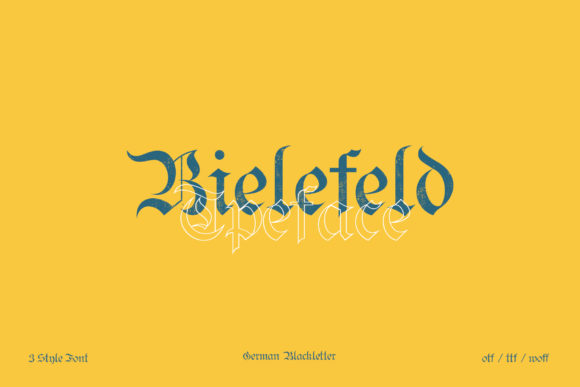
The Bielefeld Font: A Timeless Blackletter Classic
I’ll never forget the design project that led me to discover the Bielefeld font. I was working on a branding campaign for a medieval-themed restaurant, and I was struggling to find the perfect font to convey the sense of history and sophistication they needed. That’s when I stumbled upon Bielefeld – a classic and sophisticated blackletter font with a bold feel that instantly added a medieval twist to my design ideas!
An Honest Review of Bielefeld Font
- ✨ Timeless elegance: Bielefeld has a classic, sophisticated feel that works well for designs that require a sense of history and tradition.
- ✅ Bold and eye-catching: This blackletter font is perfect for headlines, titles, and emphasis text that needs to stand out.
- 💡 Versatile: Bielefeld can be used for a wide range of design projects, from medieval-themed designs to modern, bold statements.
While Bielefeld is an amazing font, there are a few things to keep in mind:
- 🤔 Limited legibility: As a blackletter font, Bielefeld can be challenging to read in small sizes or for long blocks of text.
- ⚠️ Limited suitability for body text: Due to its bold and ornate nature, Bielefeld is best used for headlines, titles, and emphasis text rather than body text.
The Backstory of Bielefeld Font
Bielefeld font was inspired by traditional medieval blackletter typefaces. Its design is rooted in the classic calligraphy of the Middle Ages, with bold lines, ornate flourishes, and a sense of history. The font’s creator aimed to capture the essence of medieval typography while making it suitable for modern design applications.
| What is the Bielefeld font best used for? | Bielefeld font is best used for headlines, titles, and emphasis text that requires a sense of history, sophistication, and boldness. |
| Is Bielefeld font suitable for body text? | No, Bielefeld font is not suitable for body text due to its bold and ornate nature. It’s best used for headlines, titles, and emphasis text. |